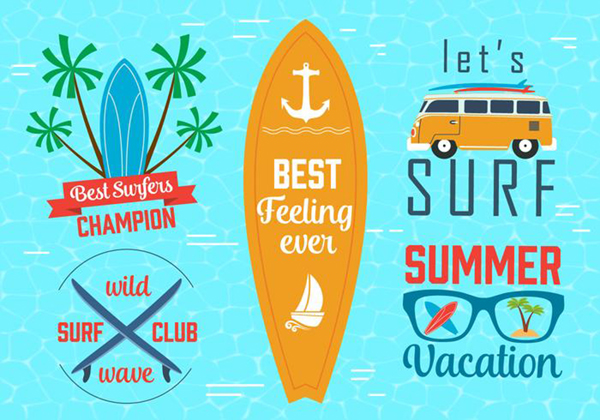
Free Tropical Fonts and Beach-Inspired Graphics
Banners
Classic with a slight Mediterranean vibe, this set of vector banners combine sparse elements with a limited color palette. These palm-laden banners can add class to a letterhead, menu, or even social media post.
Vibrant and colorful, this simple banner shouts good fun in the sun! The classic hibiscus motif just shouts Hawaiian vacation.
Photoshop Brushes
Keep the hibiscus theme going with this set of Photoshop brushes. Each brush creates a solid imprint of the tropical flower.
Create a jungle full of lush vegetation with these Photoshop brushes. With 45 brushes, you can cover your tropical design to your heart’s content.
Who doesn’t love the quirkiness of flamingos? This set of 20 Photoshop brushes features the vibrant bird standing in water, complete with reflections.
What would a list of beach-inspired items be without sand? Keeping with that theme, I present this pack of 15 Photoshop brushes to cover your artwork in virtual sand.
Background Images and Icons
While not strictly tropical, this hand-drawn vector background has a Floridian bent to it. That is, if your idea of Florida comes from Miami Vice or television portrayals of beachside retirement communities.
This vector background screams vintage Hawaiian print shirt. In fact, it’s a seamless pattern so it’s ripe for custom fabric to make a whole beach wardrobe!
Duuuuude! Catch a wave with this pack of retro surf icons. The surf-inspired logo starter kit will have you waxing nostalgic for those gnarly days back in Cali.
This vector background has all the elements of a relaxing beach vacay. Not that I’ve ever played ping-pong on the beach, but I’m willing to let that slide. Especially if I’m on vacation.
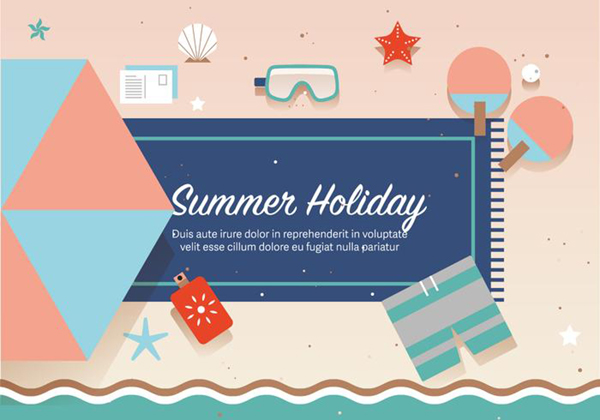
Here’s a whole pack of flat icons with a summery beach theme. From starfish to lighthouses to sandcastles, there are 50 fun designs to choose from. The built-in pattern creator lets you create and download a seamless pattern from the icons.
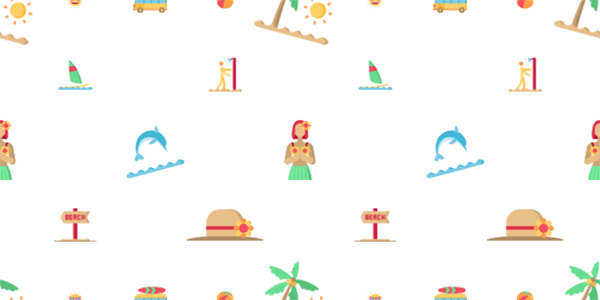
Fonts
Another classic island vibe, Tribeca would feel right at home on a tiki-inspired drink menu.
Seaweed Script is a font that would be at home on an tropical resort’s logo or a casual wedding-in-paradise invitation.
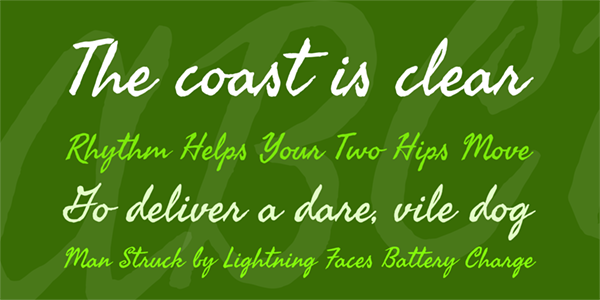
Sporting an art deco edge, Seaside Resort evokes the feeling of sailing off into the sunset on a luxury liner. Get me a mai tai, here I come!
Fun and casual, Beach Resort is a font that’s as laid-back and casual as I can only imagine island life must be.
Photoshop Action
If you’re looking to give your images that sun-bleached look, check out this Photoshop action. Beach Vintage washes across an image like the fading sun as it dips towards the horizon. Is it time for a beach getaway, yet?
I don’t know if this collection will help you imagine you’re in warmer climes, or just drive home the reality that you’re not. Unless you are in one of those sunny spots, in which case…can I come visit?